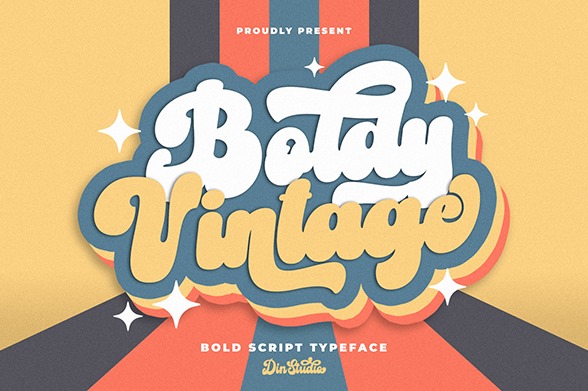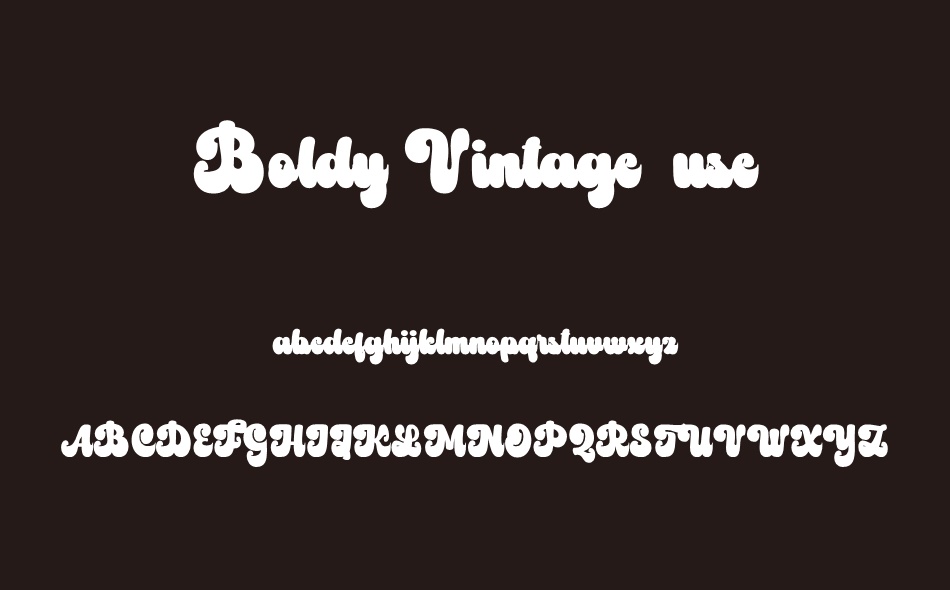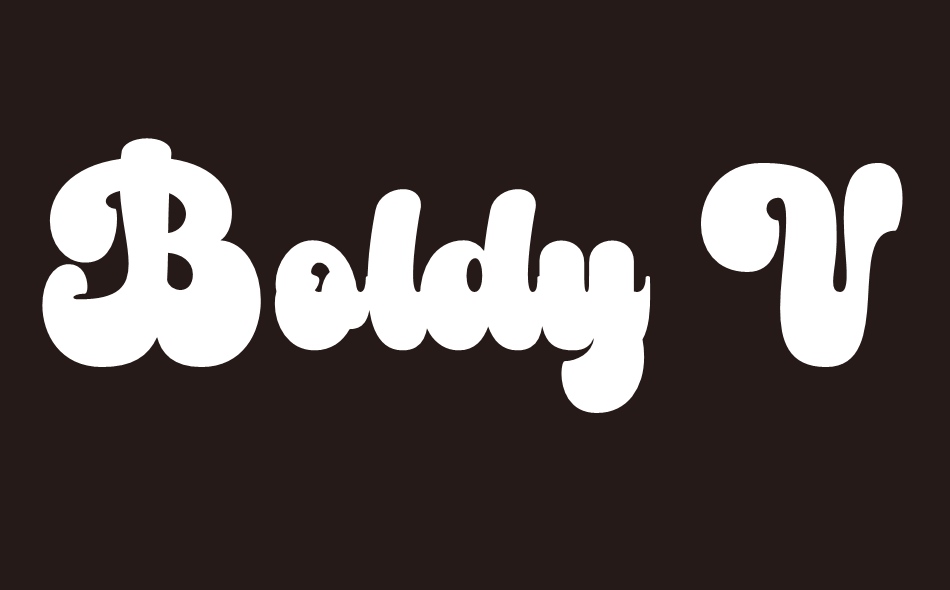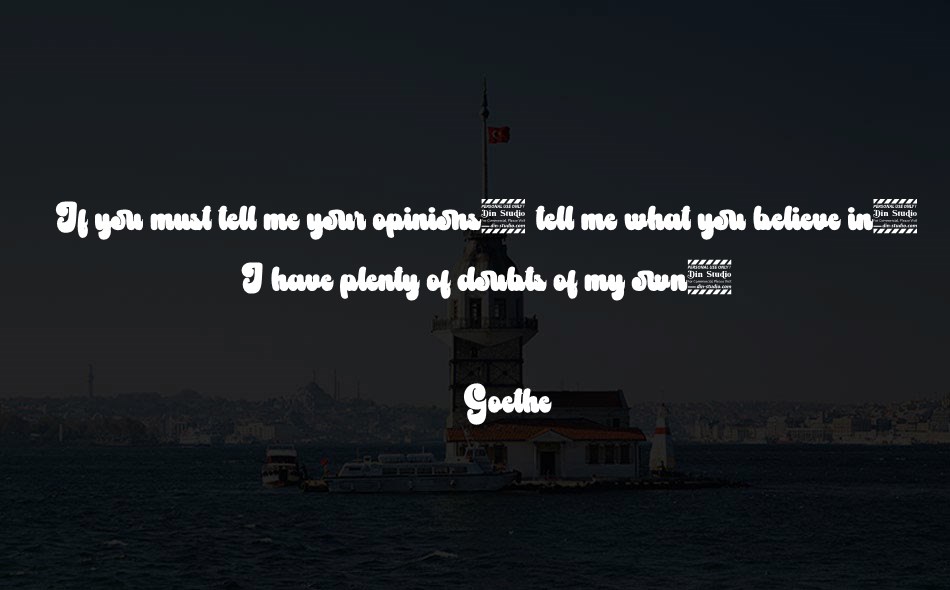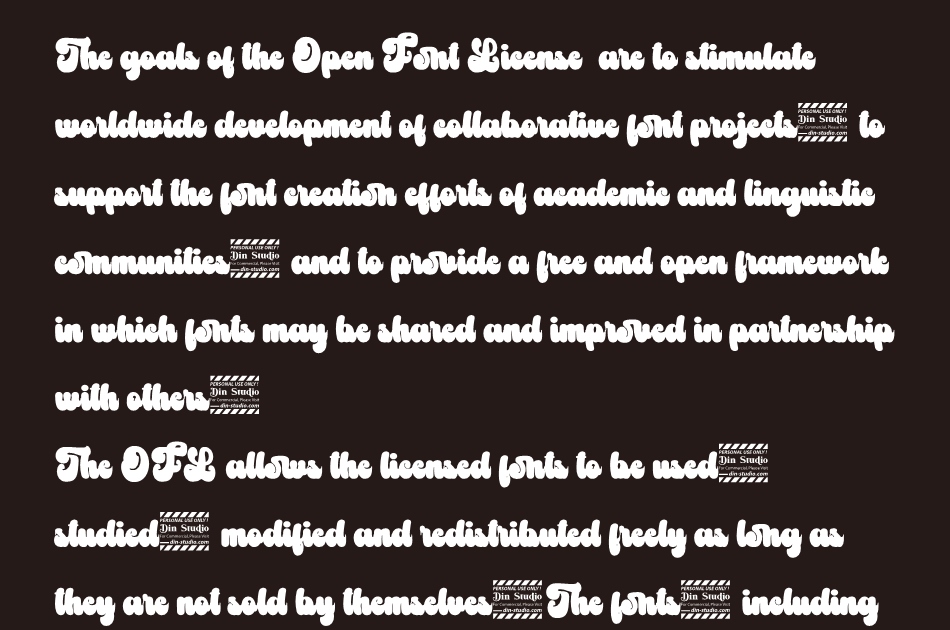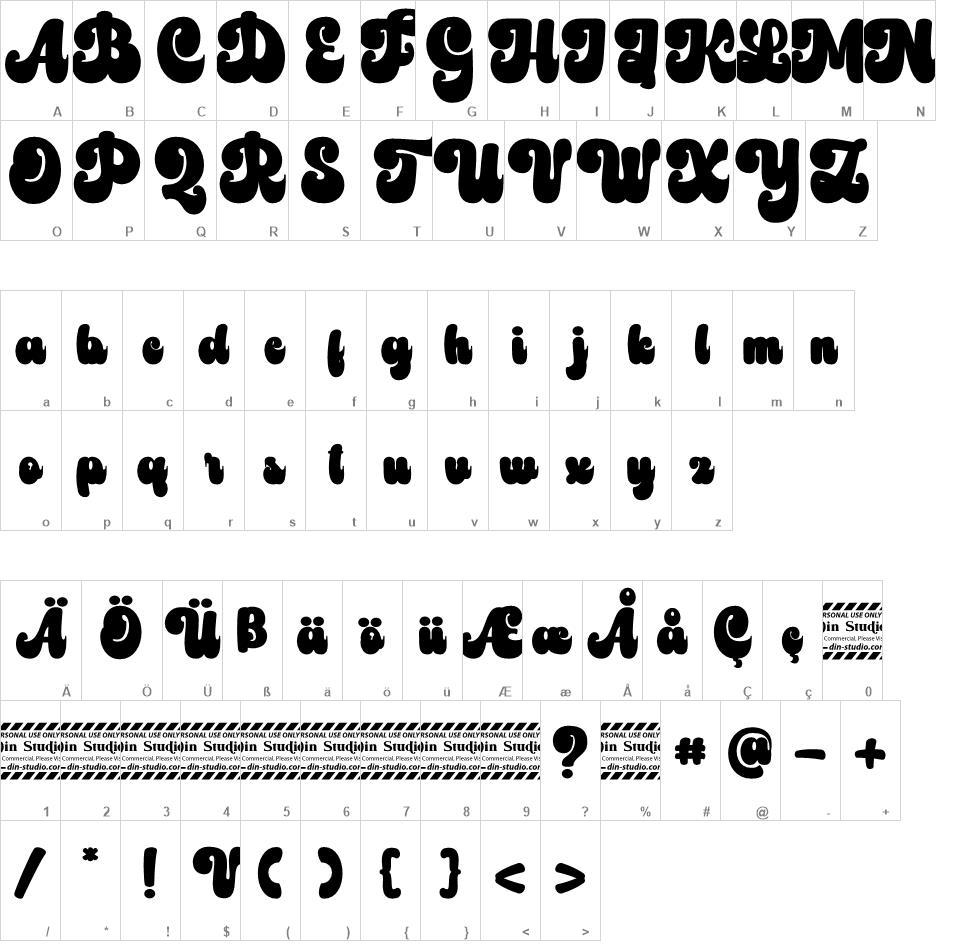
Boldy Vintage font
Boldy Vintage-Bold Script Font
Boldy Vintage is a bold, fun, and modern font. Every hand-drawn stroke and curve will delight and add brightness, modernity, and fun to wherever its placed. This bubble font is the best to maximize the amount of street vibe and playfulness. Ideal to create amazing headings, logos, menus, and social media graphics.
Our font always includes Multilingual Support to make your branding reach a global audience.
Boldy Vintage-Bold Script Font
Boldy Vintage is a bold, fun, and modern font. Every hand-drawn stroke and curve will delight and add
brightness, modernity, and fun to wherever it’s placed. This bubble font is the best to maximize the amount of
street vibe and playfulness. Ideal to create amazing headings, logos, menus, and social media graphics.
Our font always includes Multilingual Support to make your branding reach a global audience.